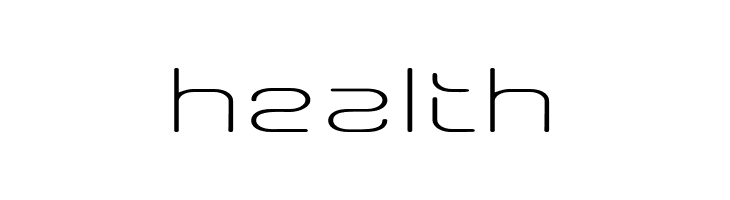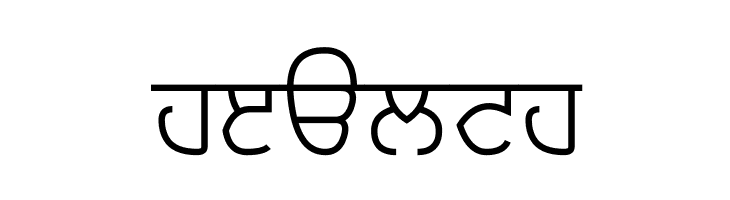
A modern, thin, and expanded font with geometric precision and minimalistic curves.
( Fonts by Rich Gast - www.greywolfwebworks.com OFF SITE )
A modern, geometric font with clean lines and a minimalist style.
A modern, geometric font with clean lines and uniform character width.
( Fonts by Dieter Schumacher )
A sleek, modern font with elongated, narrow characters and a minimalist style.
( Fonts by Rich Gast - www.greywolfwebworks.com OFF SITE )
A tall, narrow, and modern font with sleek, elongated letterforms.
A modern, geometric font with clean lines and an extra-light weight.
Modern, geometric Gurmukhi script with monolinear strokes.